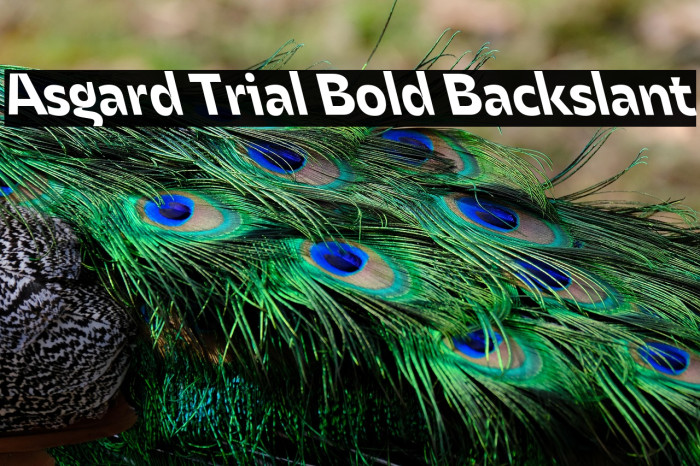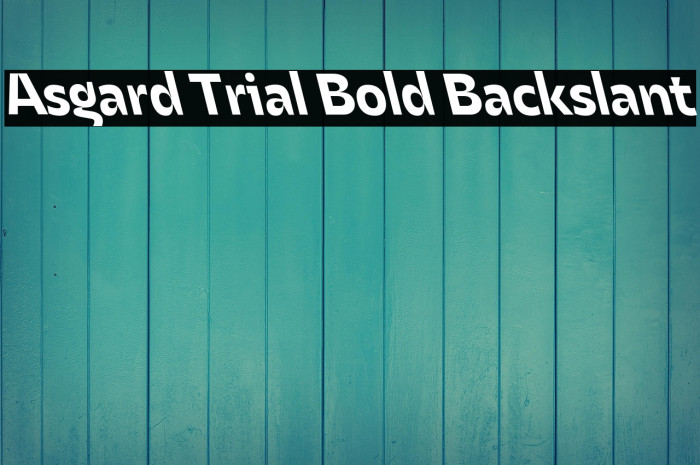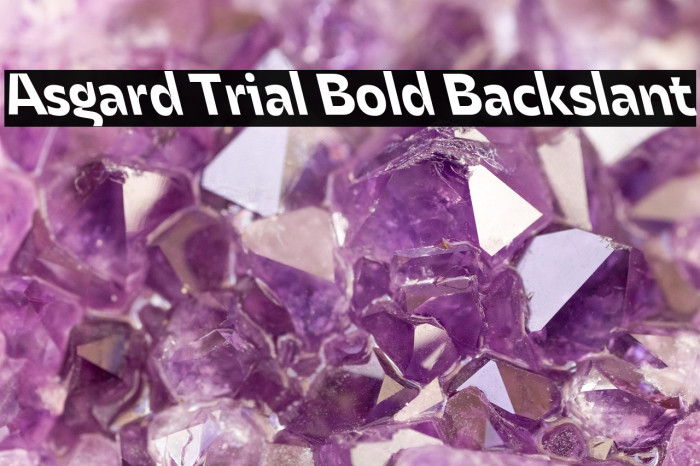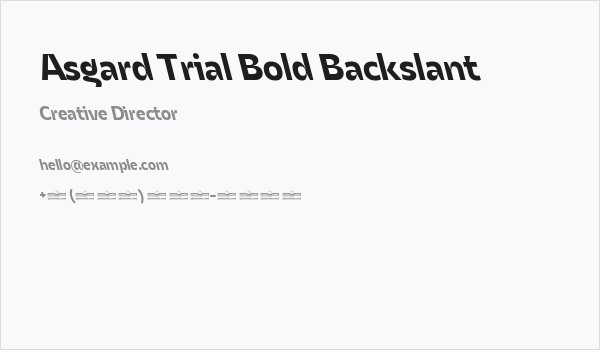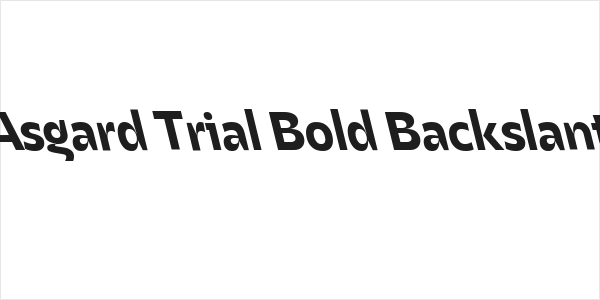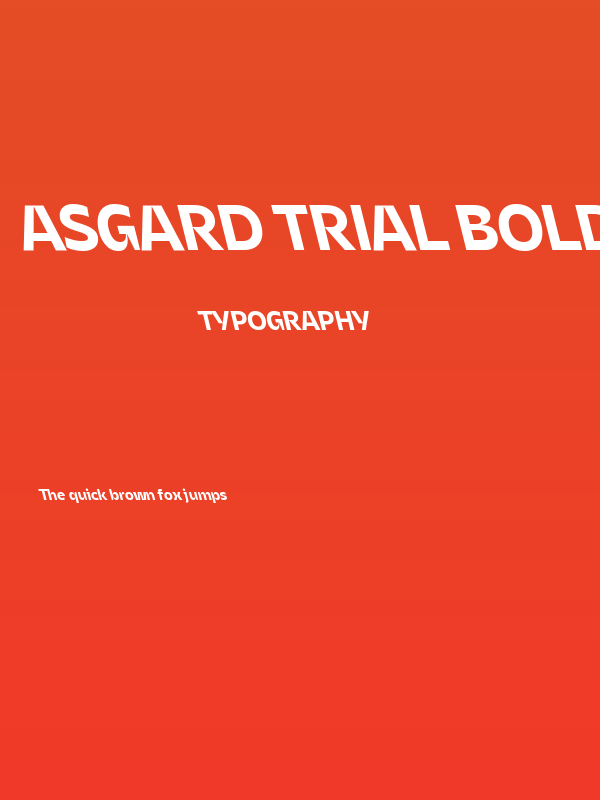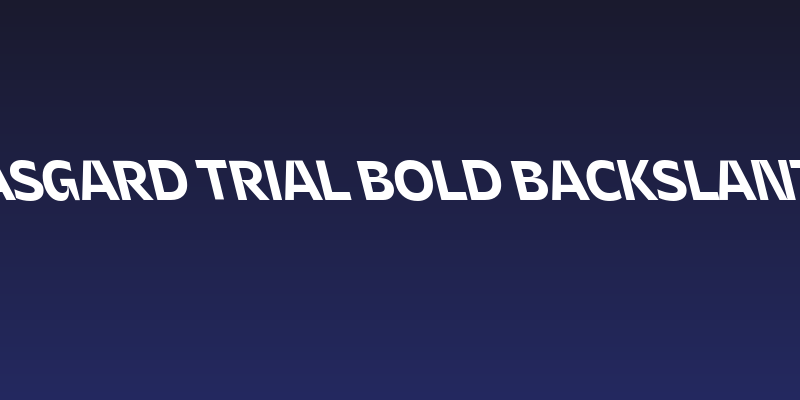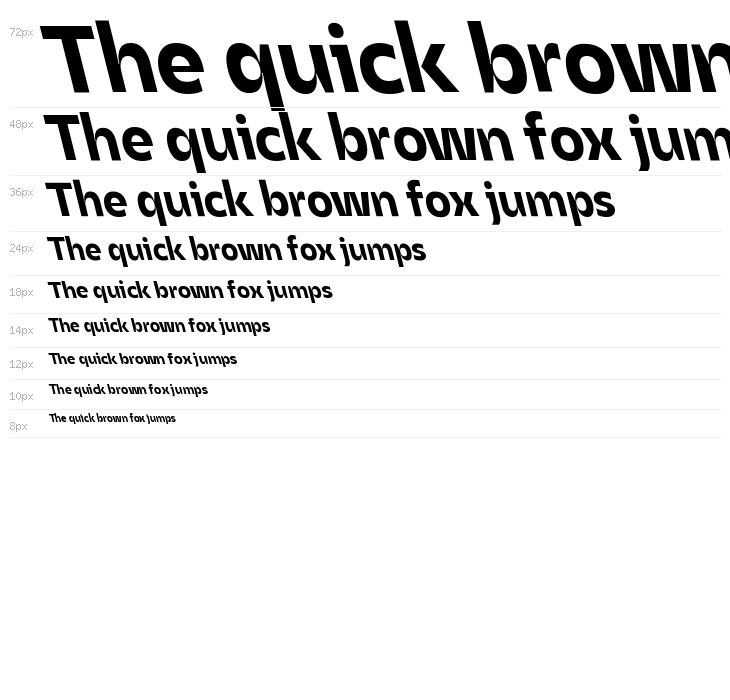
Asgard Trial Bold Backslant Font
Asgard Trial Bold Backslant Description
This font features a bold and dynamic style with a distinctive backslant, giving it a unique and modern appearance. The characters are robust and slightly condensed, with a consistent stroke width that enhances readability while maintaining a strong visual impact. The uppercase and lowercase letters are well-balanced, and the numerals are clear and easily distinguishable. Special characters are included, adding versatility for various design needs. The overall design is clean and contemporary, making it suitable for a wide range of applications.
| Proposed Projects | Ideal for branding, advertising, headlines, and posters where a bold statement is needed. |